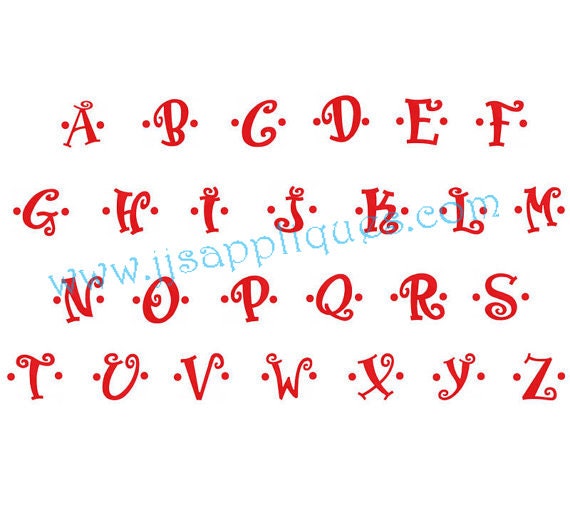
Embroidery Font Designs - Boingo Font Designs Capital Letters, Dotted, Decorated Fonts, 5 inches tall
The Boingo Dotted font set comes with all 26 fill capital letters, 5 inches tall, with a whimsical dot on each side. Individual letters are its own design so you will receive 26 files along with a jpg of each finished design.